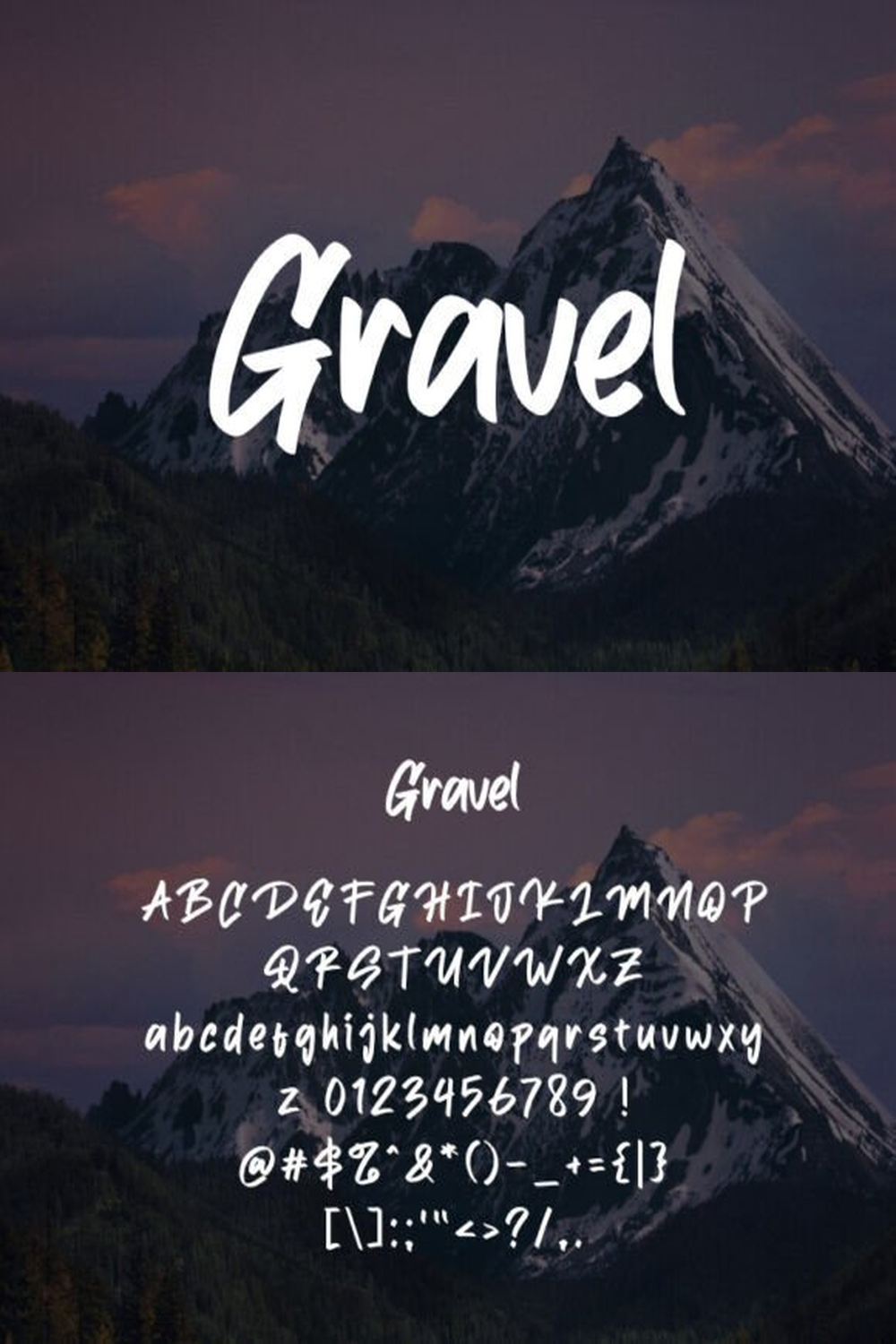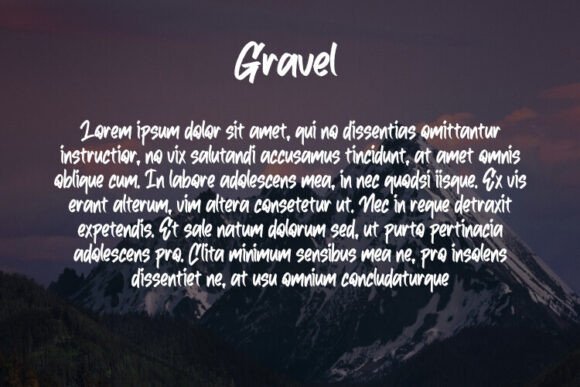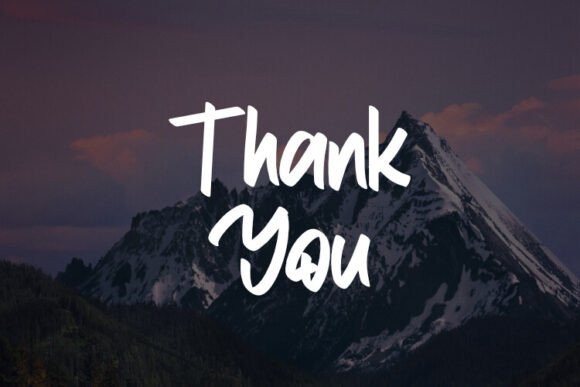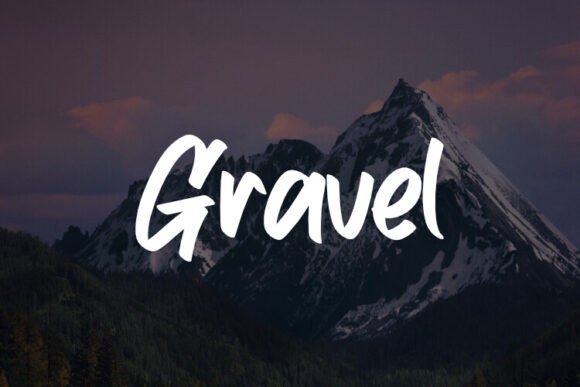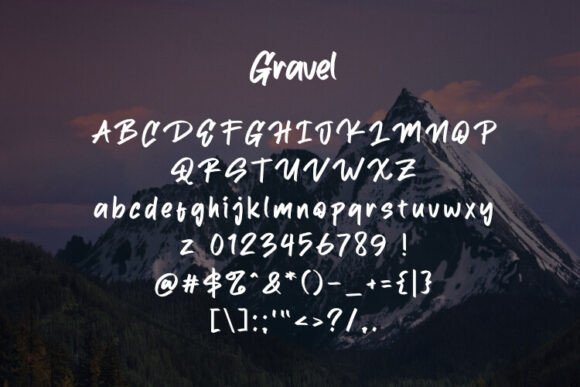
Gravel Font: A Bold Display Font for Striking Logo Design
About the Gravel Font
Experience the unique personality of Gravel Font, a font designed for impact. Meet “Gravel” – a veritable powerhouse of a font! Embodying a dynamic spectrum of design possibilities, Gravel is the perfect accompaniment for your next apparel or product design project. Whether it’s t-shirts or a diverse array of other products, Gravel seamlessly adapts, turning your design visions into stunning realities. Compatible with any software, Gravel’s versatility transcends boundaries. It’s provided as an otf file, ensuring optimal use across different platforms. Gravel is not just a font, but a testament to design excellence and a catalyst for creative expression. Immerse yourself in the world of design with Gravel!